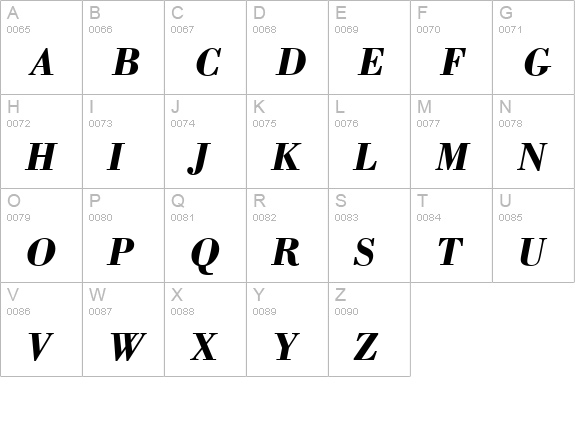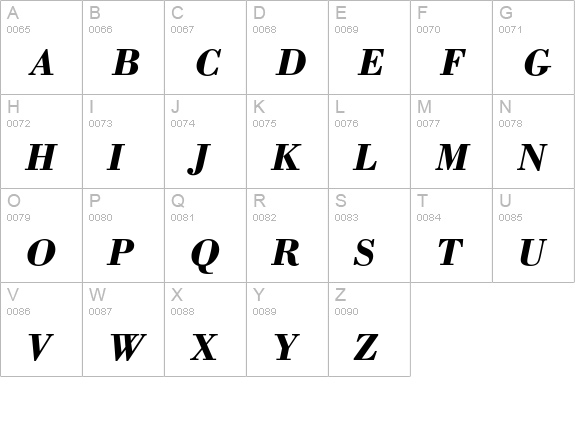
Bodoni CG ATT Bold Italic Font Details
Bodoni CG ATT Bold Italic is a strong, high-contrast, italic variant in the Bodoni typeface family \xE2\x80\x94 well suited to headlines, attention-grabbing titles, and strong calls-to-action.
Bodoni CG ATT Bold Italic font is a striking and elegant typeface that exudes sophistication and style. Its bold weight commands attention, while the italicized slant adds a touch of flair and drama. The sharp serifs and clean lines of Bodoni CG ATT give it a timeless and classic appeal, making it a versatile choice for a wide range of design projects. This font is perfect for creating eye-catching headlines, titles, and logos that demand to be noticed. Whether used for print or digital projects, Bodoni CG ATT Bold Italic will add a touch of luxury and refinement to any design. Best of all, this font is available for free download at FontsMarket.com, making it easily accessible for designers and creators looking to enhance their work with a touch of elegance and sophistication. Don't miss out on the opportunity to elevate your designs with the timeless beauty of Bodoni CG ATT Bold Italic font.